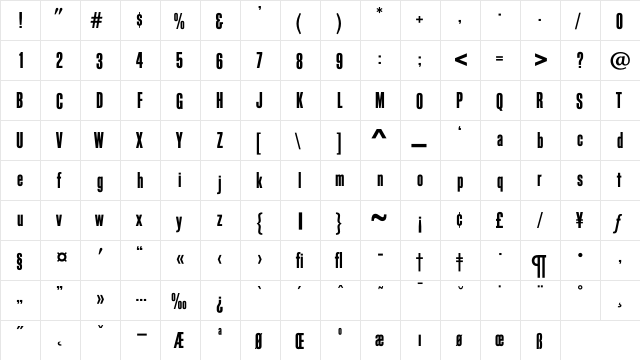
BlockGothicBoldExtraCond Regular Font Preview
Design Context for BlockGothicBoldExtraCond Typeface
BlockGothicBoldExtraCond has the quiet confidence of well-executed sans-serif typography: versatile, unobtrusive, and dependable at any size. The heavy weight commands attention and anchors typographic hierarchies. Its narrow stance lets it pack a punch even in space-constrained designs.
Well-suited to navigation labels, product packaging, and anywhere legibility at scale is essential.
Font Pairing: Use BlockGothicBoldExtraCond for headlines alongside a lighter-weight sans or serif for body copy to establish clear visual hierarchy.
Pro Tip: Use BlockGothicBoldExtraCond tightly set in headlines and banners — its condensed proportions make it ideal for maximum impact in minimum horizontal space.